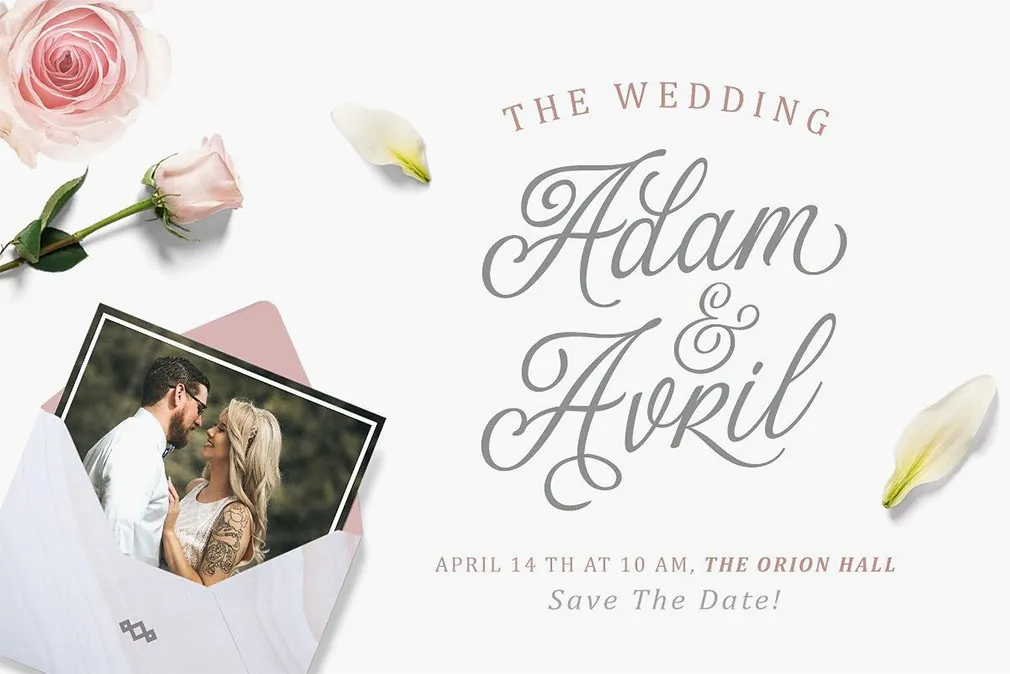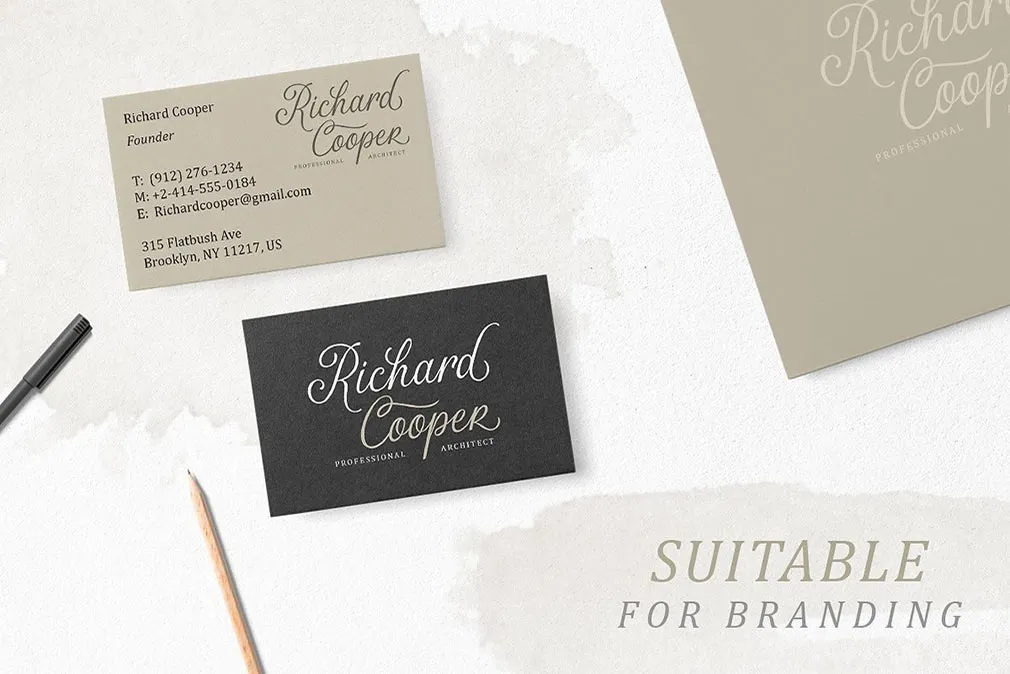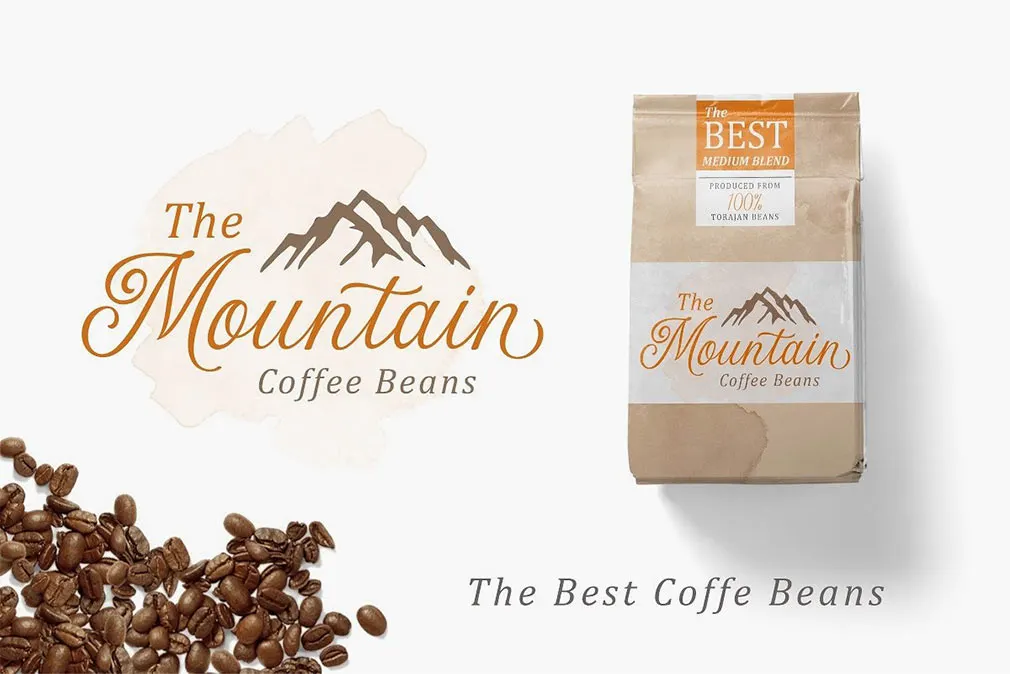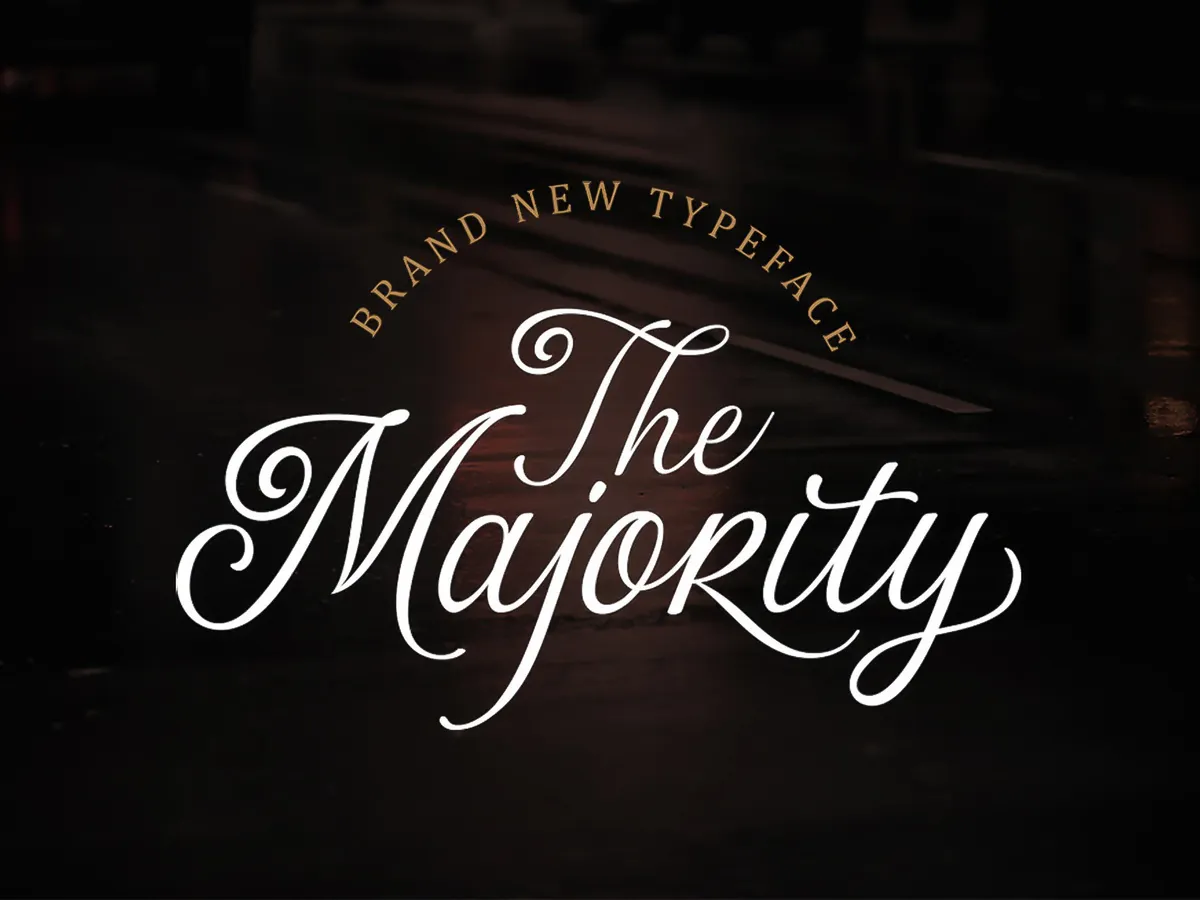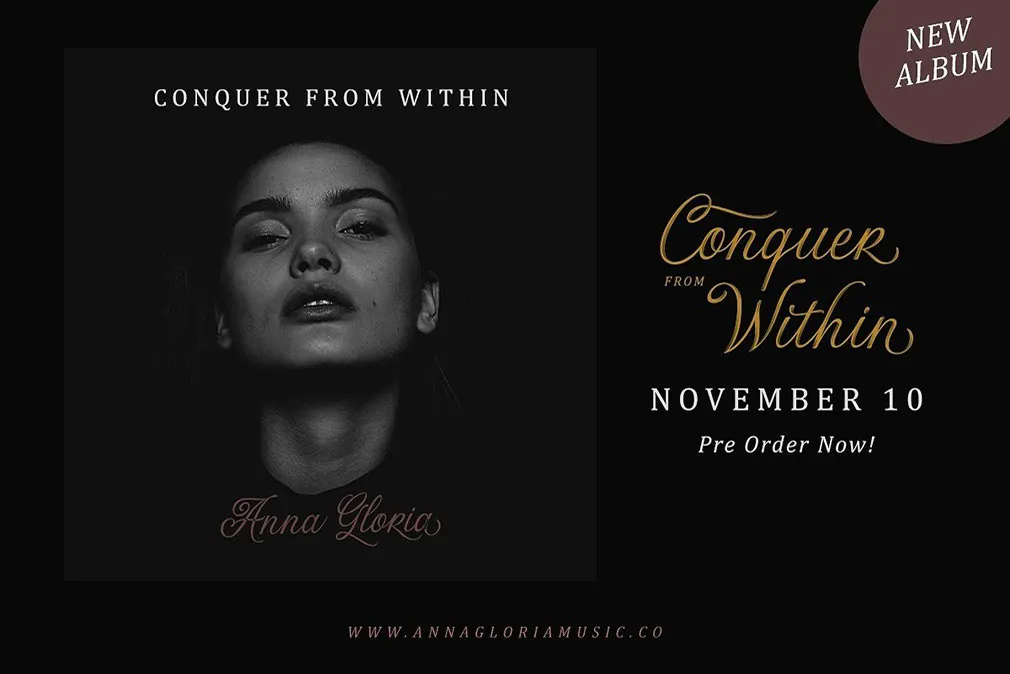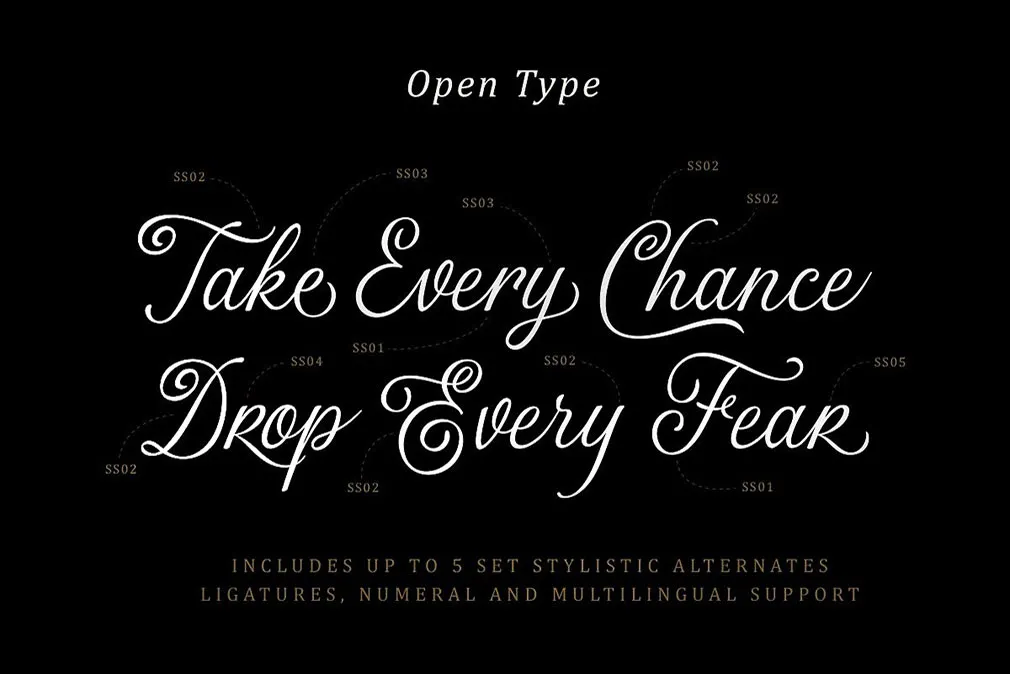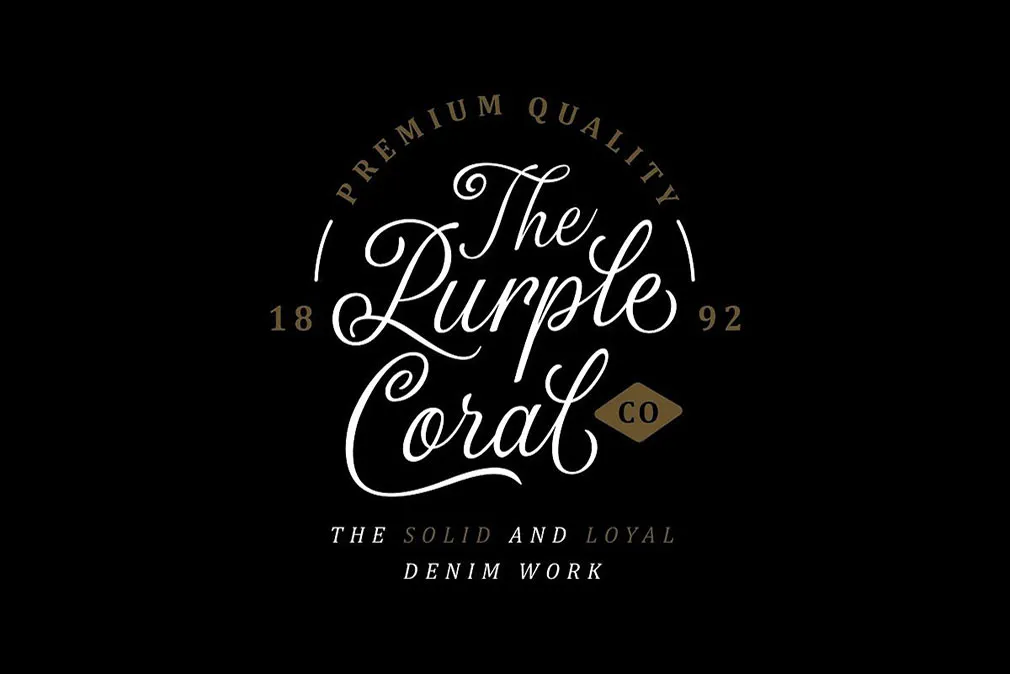
The Majority Script Font
Your projects deserve the best design, so weve brought you this astonishing script, carried out with love to details. Just add it to any piece of your work and the awe of approval is guaranteed.
Letterhend has successfully worked on a font, representing the middle ground of daintiness. And now we see the script, applicable to any type of design. The infinite quantity of expressions is possible due to upper & lowercase, punctuation marks, symbols & numerals available in the kit. What is more significant, there is no language limit! So let your designs be multilingual and spread the message to everyone through logos, headlines, t-shirt designs, lettering quotes and much more. Youll be proud of your creations!